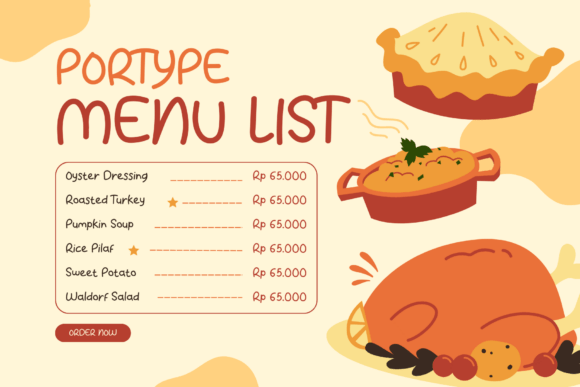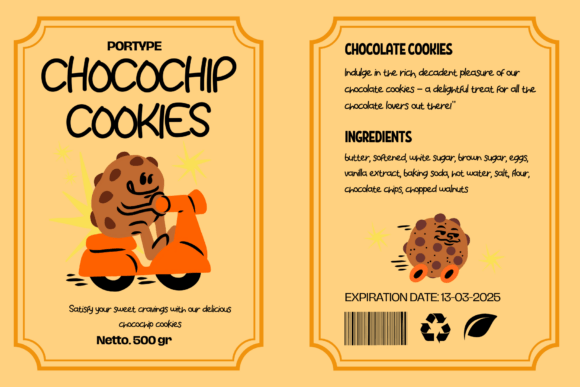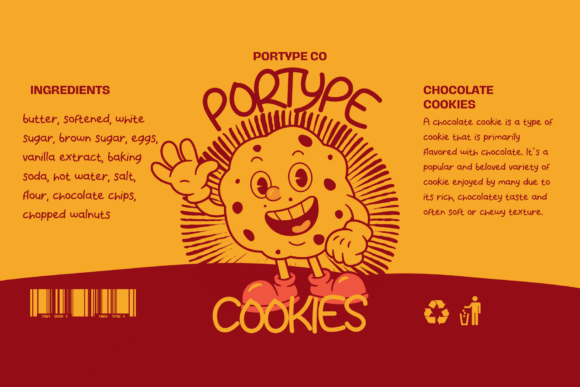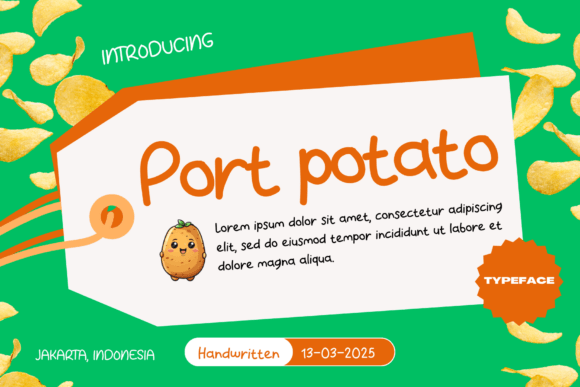
Introduction to Port Potato Font
Port Potato is a handwritten font inspired by the organic, irregular shapes of potatoes.
It has a natural, slightly wobbly feel that gives it a warm and friendly character This font is perfect for branding, packaging, illustrations, and creative projects that need a casual and approachable touch.
Key Features of Port Potato Font